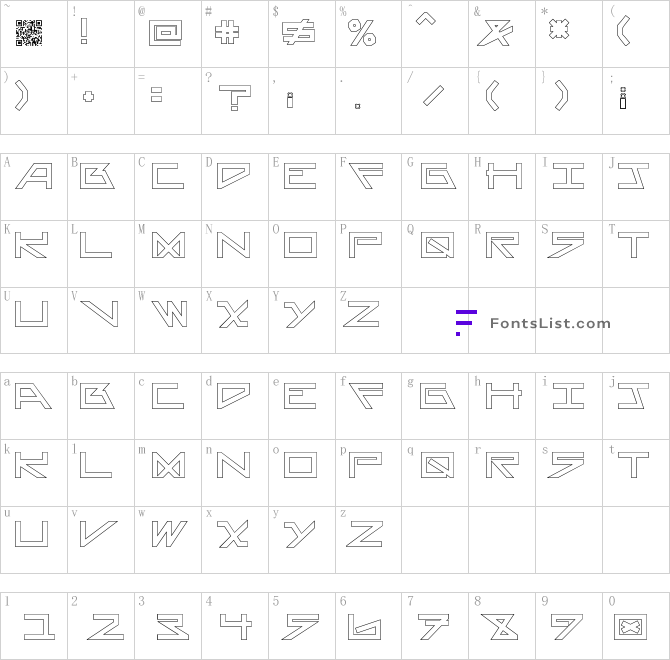
AsteriskHollowBold.ttf is a very beautiful artistic font, AsteriskHollowBold.ttf is widely used in the design and printing of various books and pictures,AsteriskHollowBold.ttf has a strong visual impact,AsteriskHollowBold.ttf is a commonly used font in newspapers, magazines and books, and is used in posters, e-commerce Poster design, store design, logo design, font design and other fields.AsteriskHollowBold.